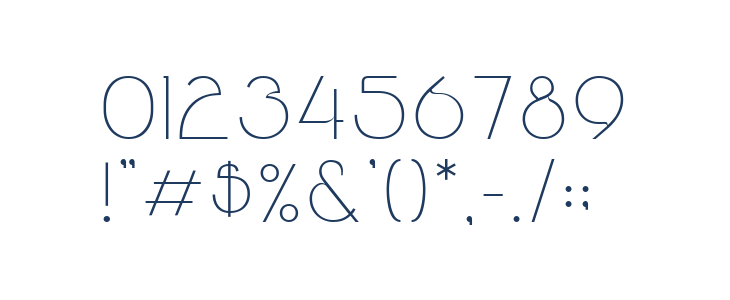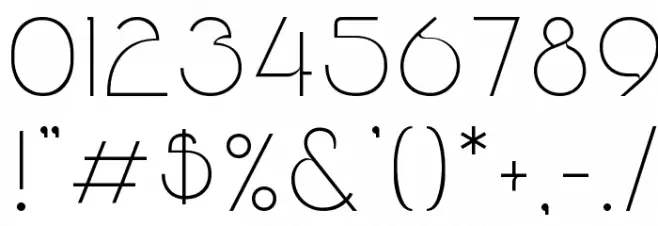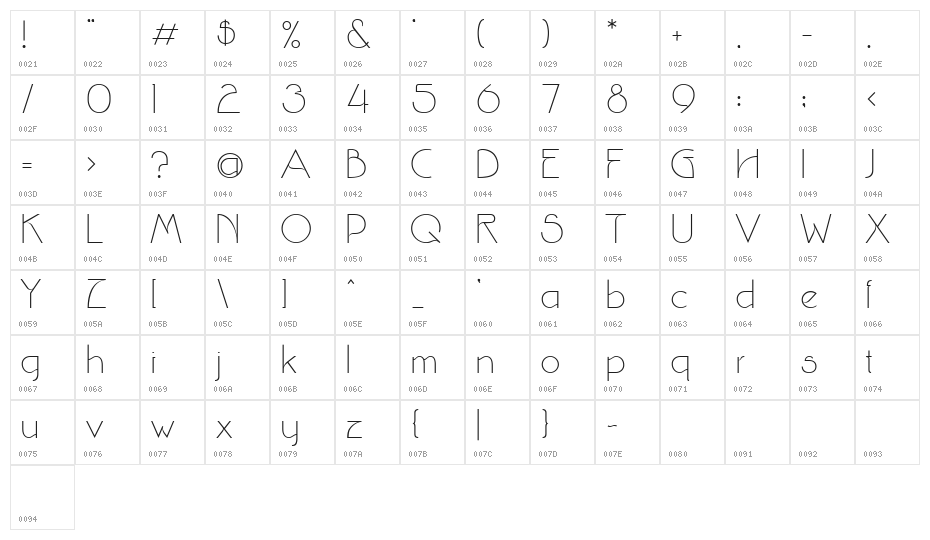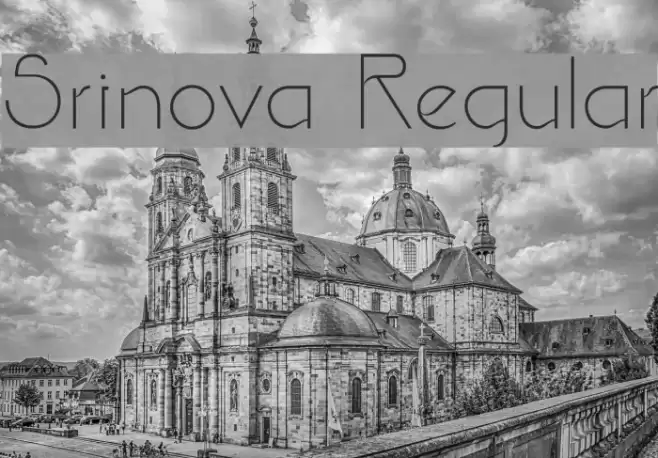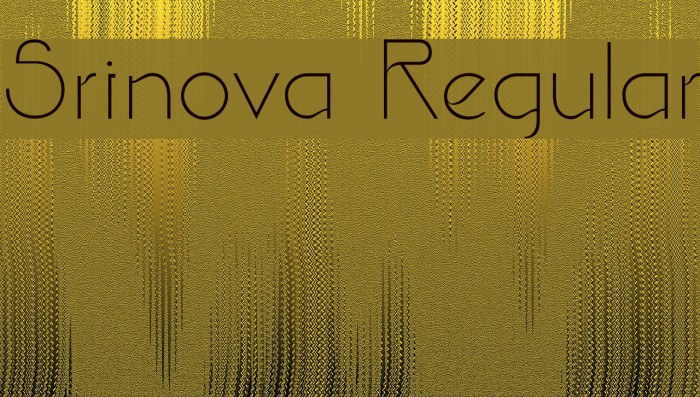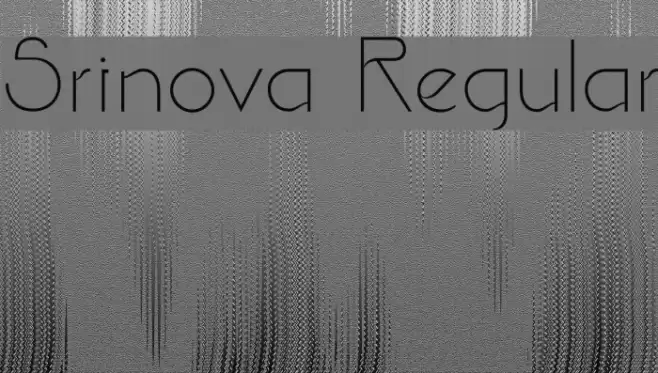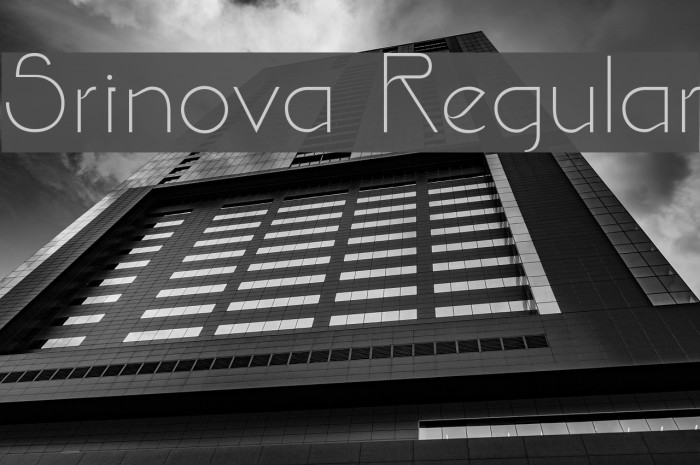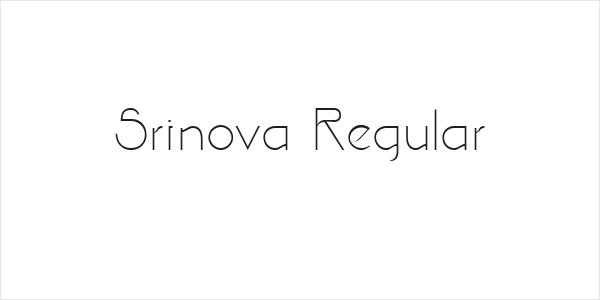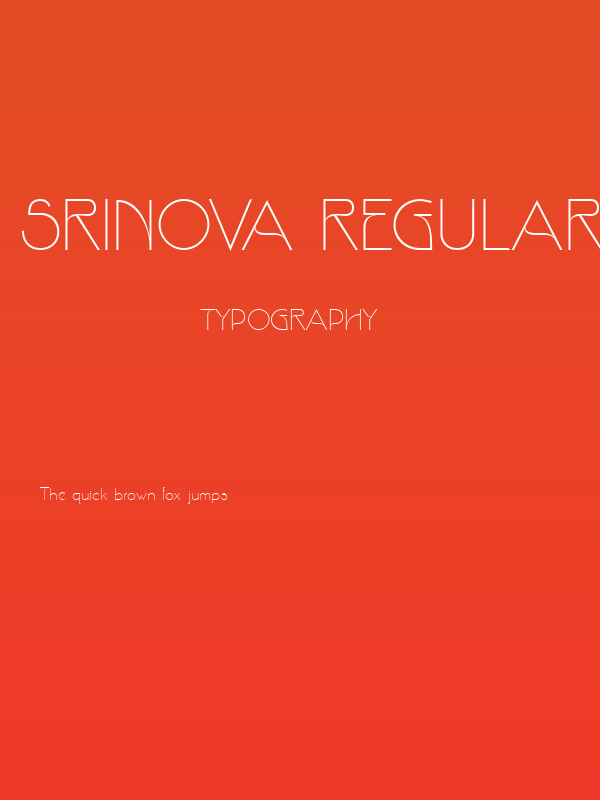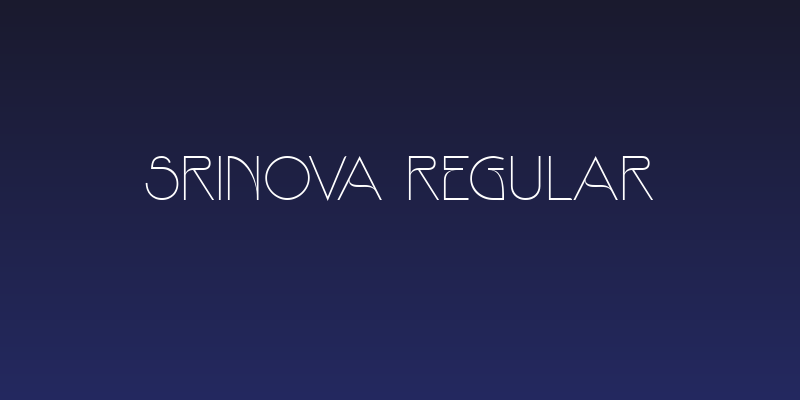
Srinova Regular Font
Srinova Regular Description
This font features a sleek and modern design with clean, geometric lines. The characters are crafted with a minimalist approach, emphasizing simplicity and elegance. Uppercase and lowercase letters maintain a consistent style, with rounded edges and a uniform stroke width. The numerals and special characters complement the overall aesthetic, making it versatile for various design needs. Its contemporary look is suitable for projects that require a touch of sophistication and clarity.
| Proposed Projects | Ideal for branding, editorial design, digital interfaces, and modern advertising campaigns. |